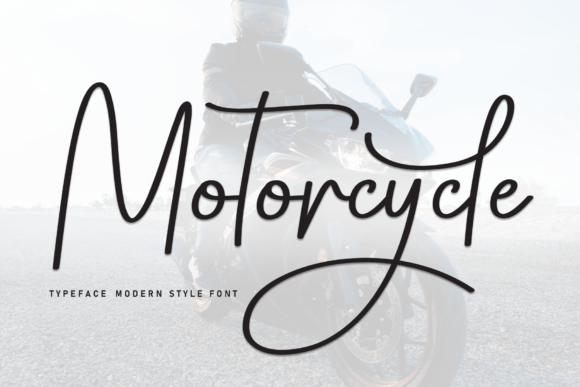
Introducing Motorcycle Font, a delightful handwritten font that captivates with its genuine charm. Immerse yourself in the world of customizable typography, where your creative visions know no bounds. Motorcycle Font is a symphony of elegance and playfulness, effortlessly intertwining the best of both worlds. It's a font that speaks to the heart, whispering tales of warmth and inviting a touch of whimsy into your designs.
Crafted with meticulous care by Creativewhitee, Motorcycle Font exudes an inviting personality that beckons you to explore its endless possibilities. This enchanting script font dances across the page with a rhythmic flow, adding a dash of allure to every letterform. Its enchanting curves and delicate strokes evoke a sense of nostalgia, reminiscent of handwritten notes exchanged between friends.
Whether you're a seasoned designer seeking to expand your typographic horizons or a novice just starting your creative journey, Motorcycle Font welcomes you with open arms. Its user-friendly nature makes it an ideal choice for a wide range of design projects. Embrace the versatility of Motorcycle Font as it seamlessly adapts to various styles, from elegant wedding invitations to playful social media posts. It's the perfect companion for creating captivating email campaigns that leave a lasting impression.